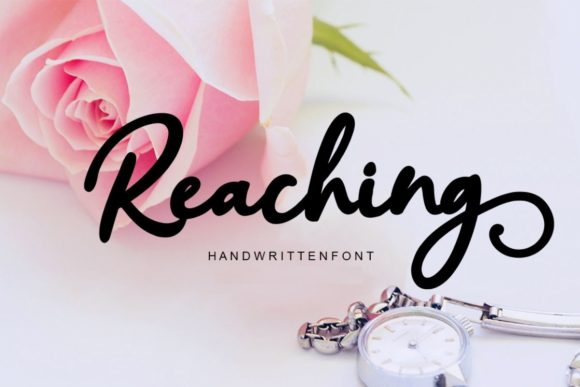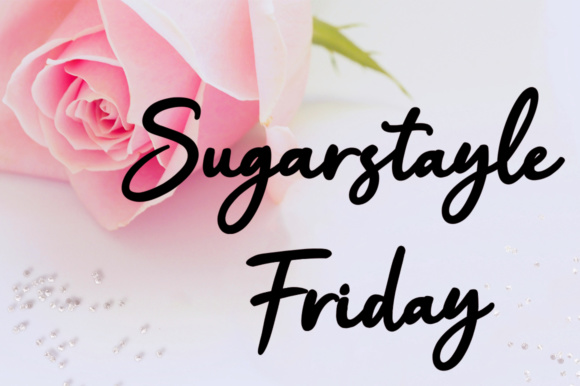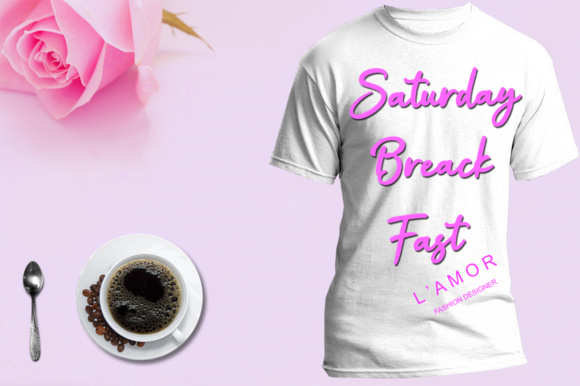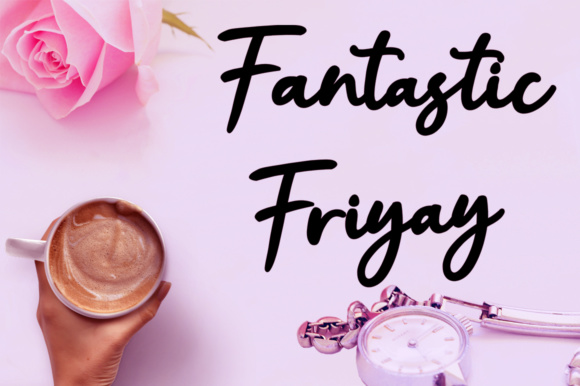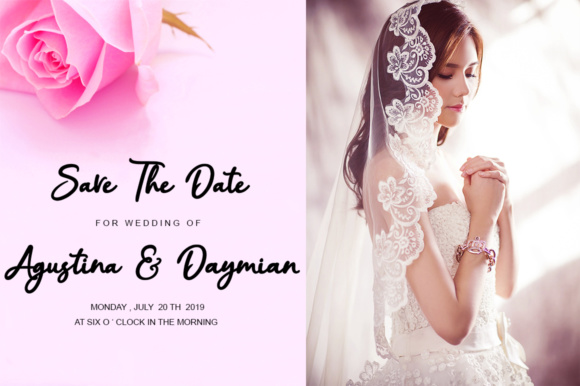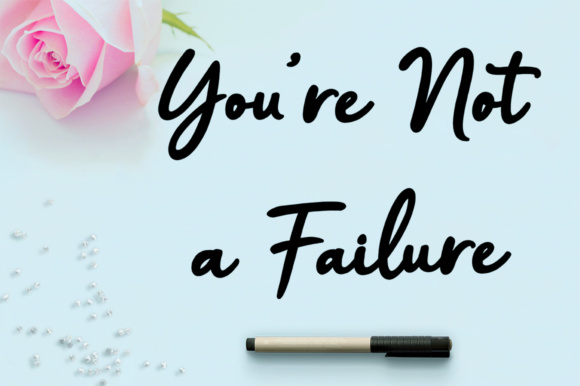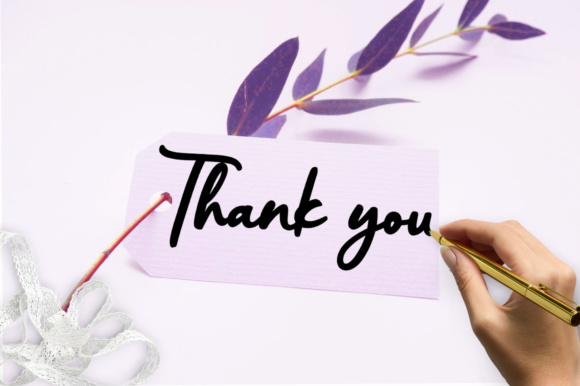
Reaching Script Font
About Reaching Script Font
Reaching Script is a modern handwritten font. Reaching is suitable for invitations, brand projects, logos, greeting cards, news, and every other design that needs a personal charm.